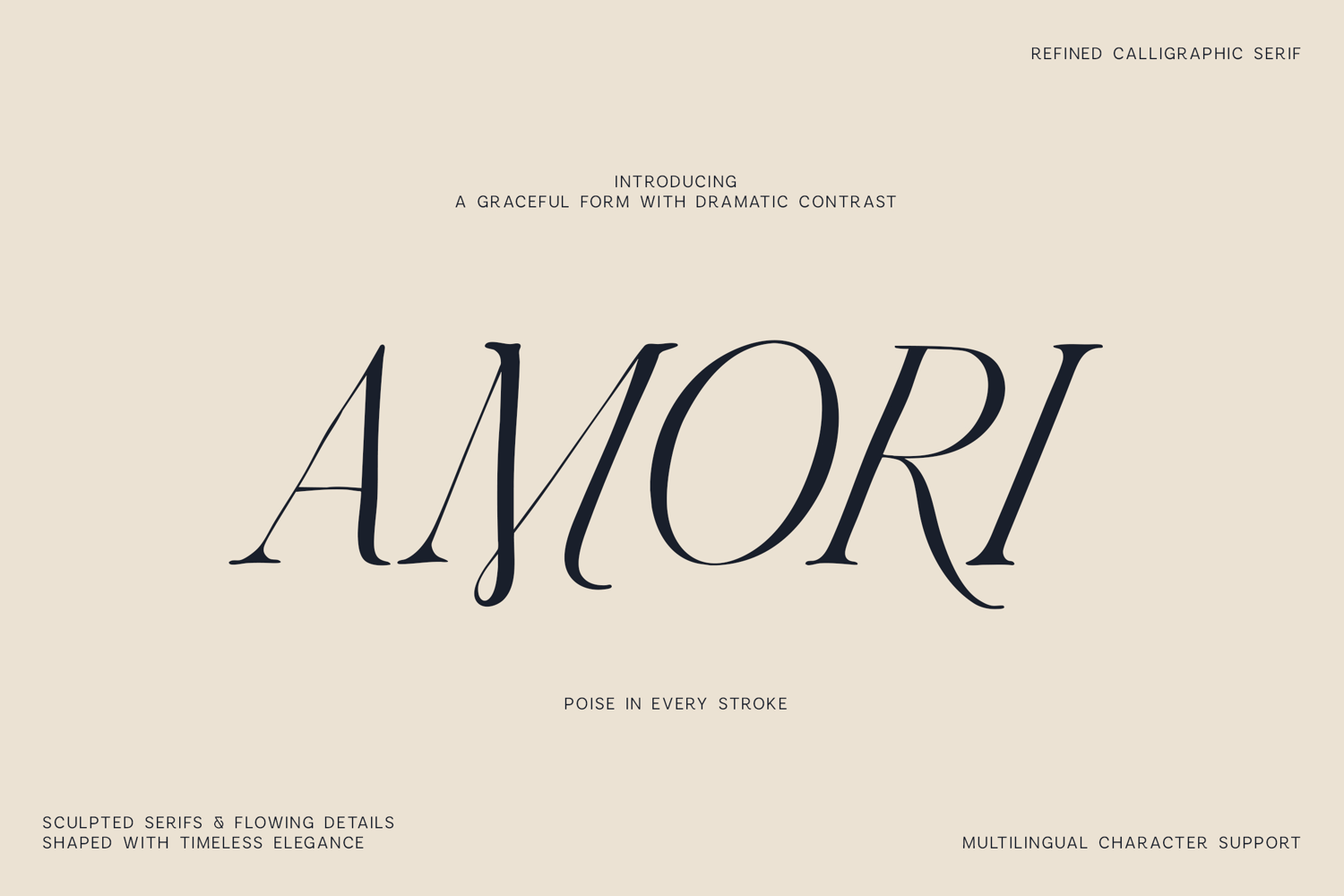
Ajori Elegant Serif Font for Luxury Branding
Create polished and memorable typography with Amori, an elegant serif font developed for luxury branding, sophisticated headlines and graceful visual identities.
Amori combines fine hairlines, dramatic stroke contrast and flowing details inspired by calligraphic lettering. Its sculpted serif shapes give words an upscale appearance without feeling overly traditional.
The expressive uppercase characters work beautifully for names, logos and large titles, while the lowercase alphabet introduces a softer rhythm that makes longer phrases feel fluid and distinctive.
This elegant serif font is a strong choice for:
- Luxury logo design
- Beauty and fashion branding
- Product packaging
- Editorial layouts
- Wedding stationery
- Boutique identities
- Social media graphics
- Magazine titles
- Invitations
- Premium product labels
Amori brings together sophisticated proportions and expressive calligraphic details, making it easy to create typography that feels considered, premium and visually distinctive.
Use this elegant serif font whenever your project needs a refined identity with a strong sense of movement and style.